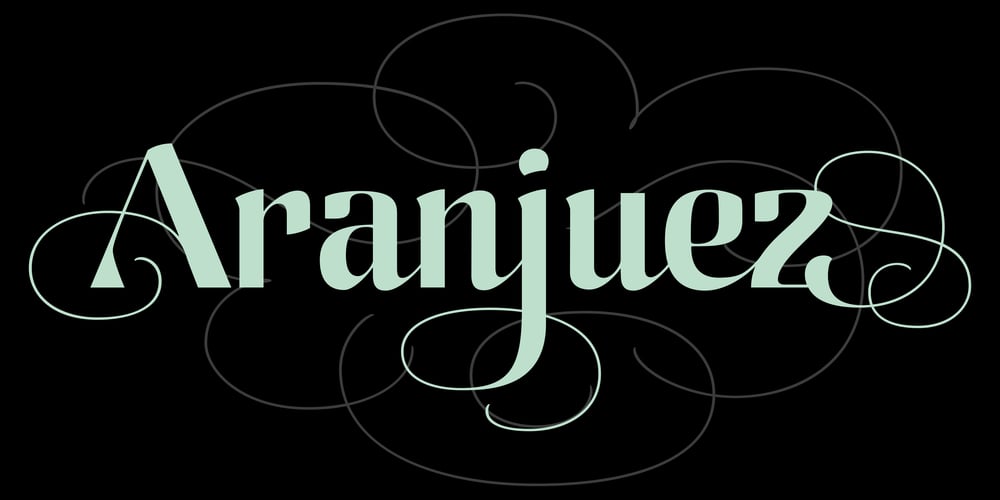
Aranjuez Pro Font Family was designed by Alejandro Paul, Angel Koziupa and published by Sudtipos. Aranjuez Pro contains 1 styles and family package options. Aranjuez is the latest Koziupa and Paul adventure. This time, they max out on calligraphic art deco, then add a healthy dose of the thick-and-thin mantra that’s been so trendy for quite a few years now. The result is neo-psychedelia in an upright cross-breed of pseudo-wood deco and ornamental calligraphy, complete with alternates, swashes, endings, playful contrast treatments, and even background possibilities. This font is quite expressive, and its elegance is meant to be shown prominently. So use it for packaging, book covers, or wherever the message needs to be delivered clearly and with a precisely controlled touch of class.